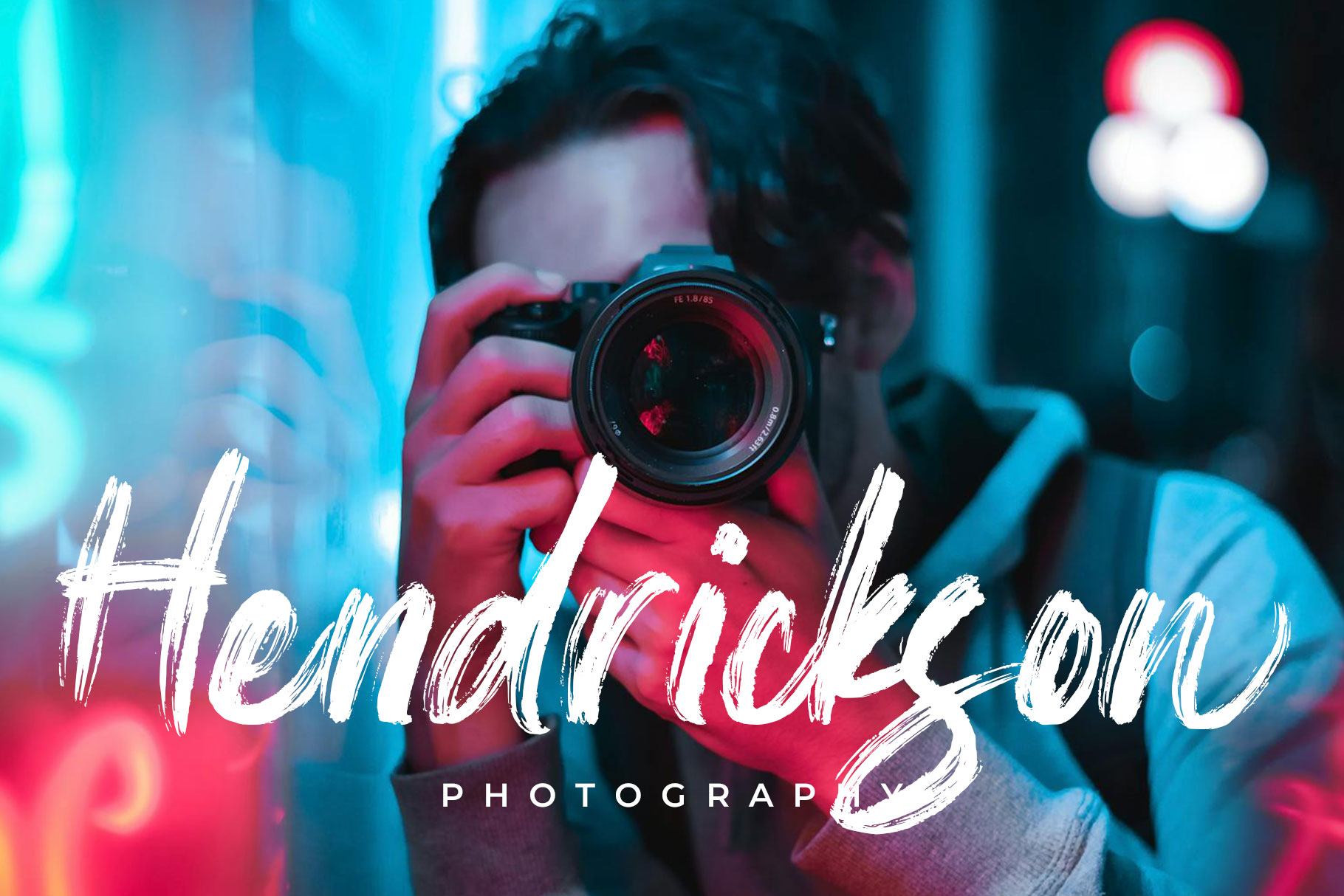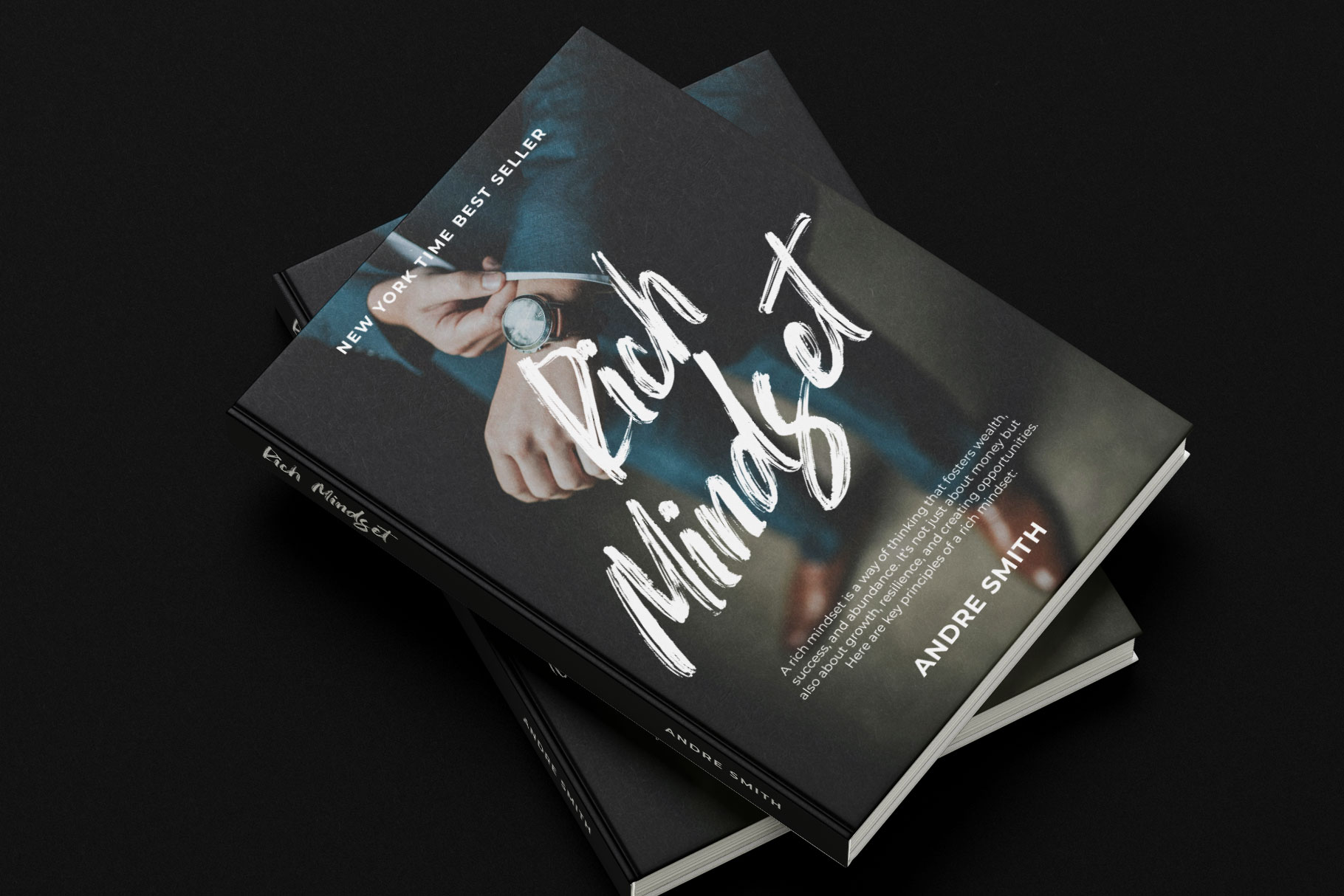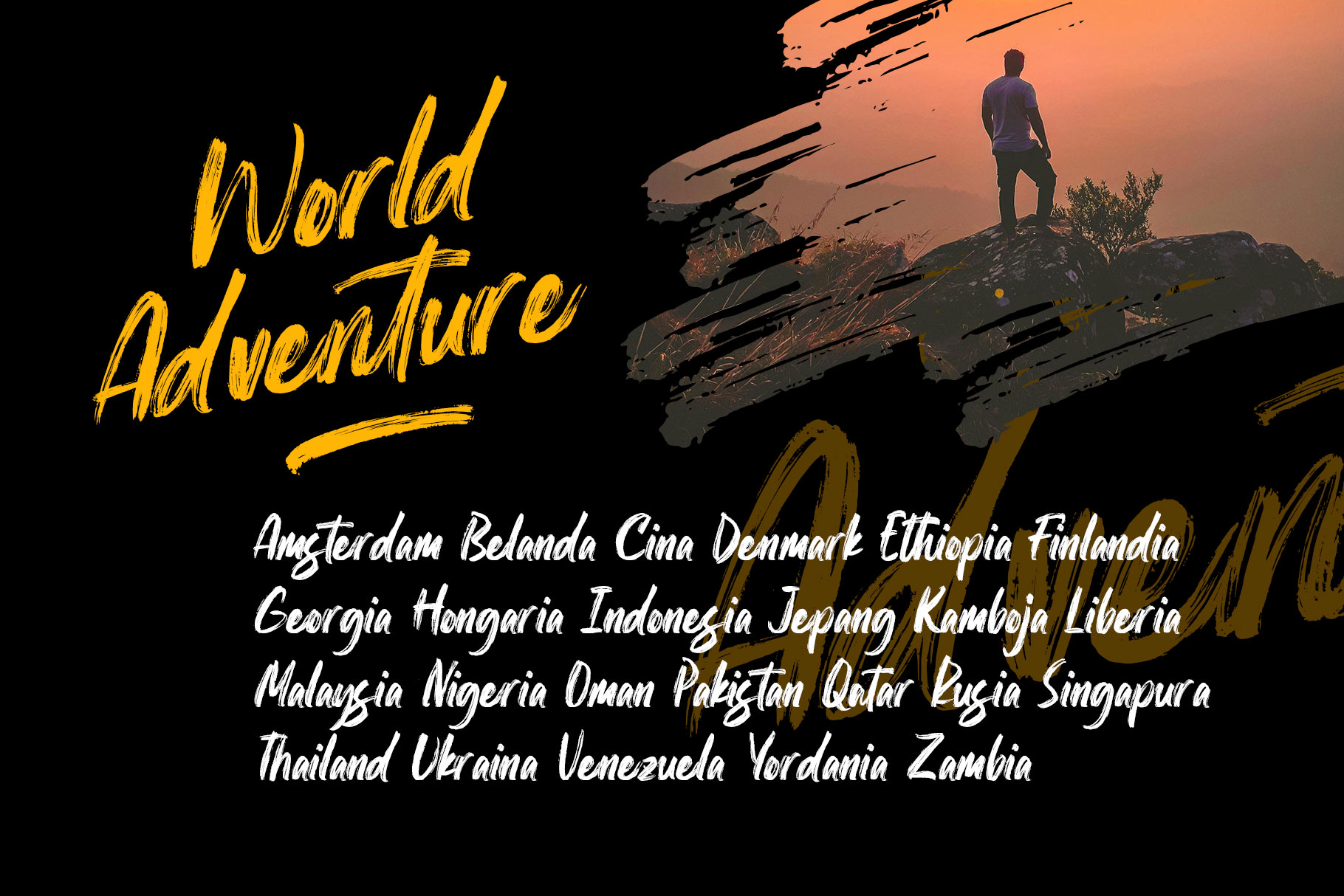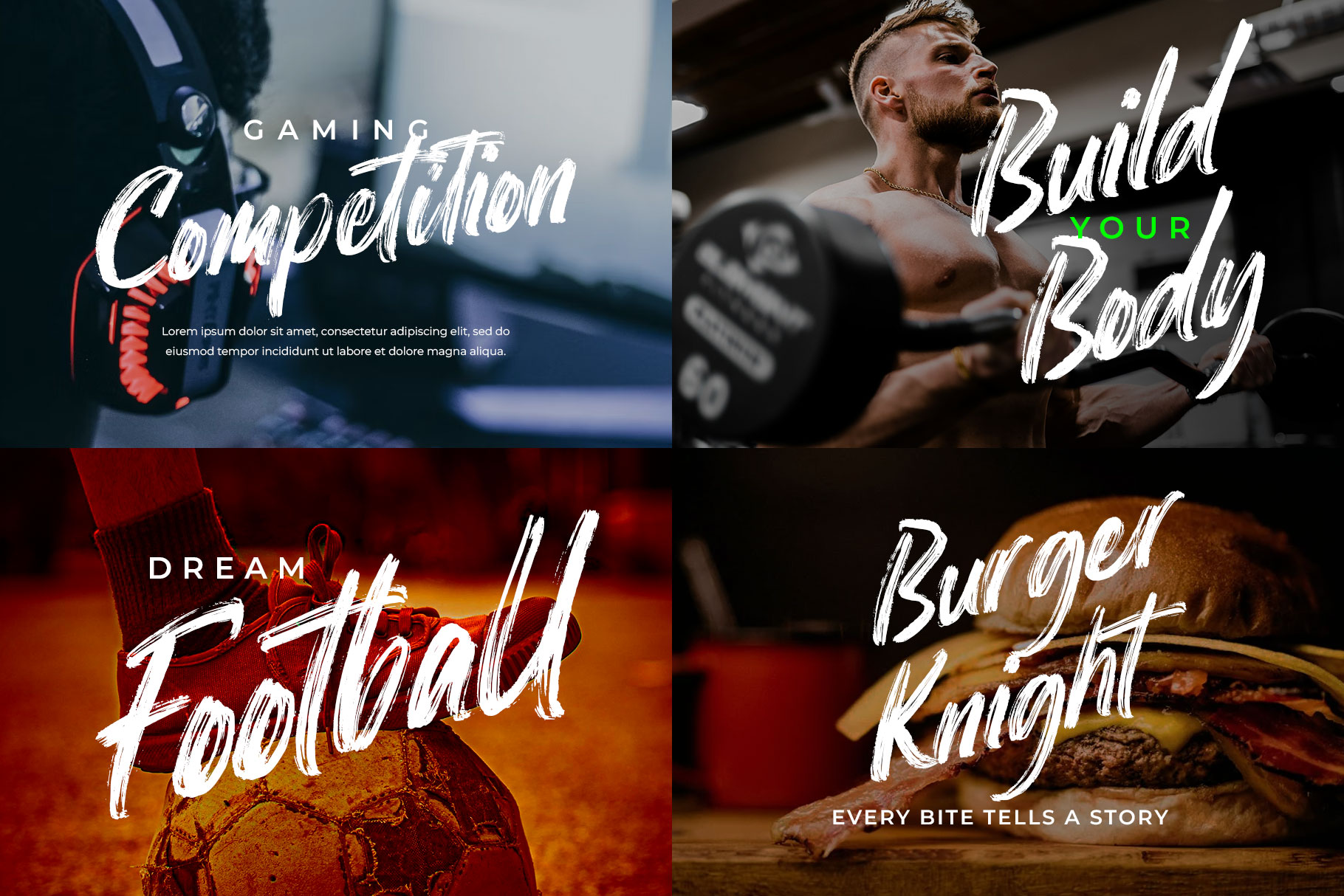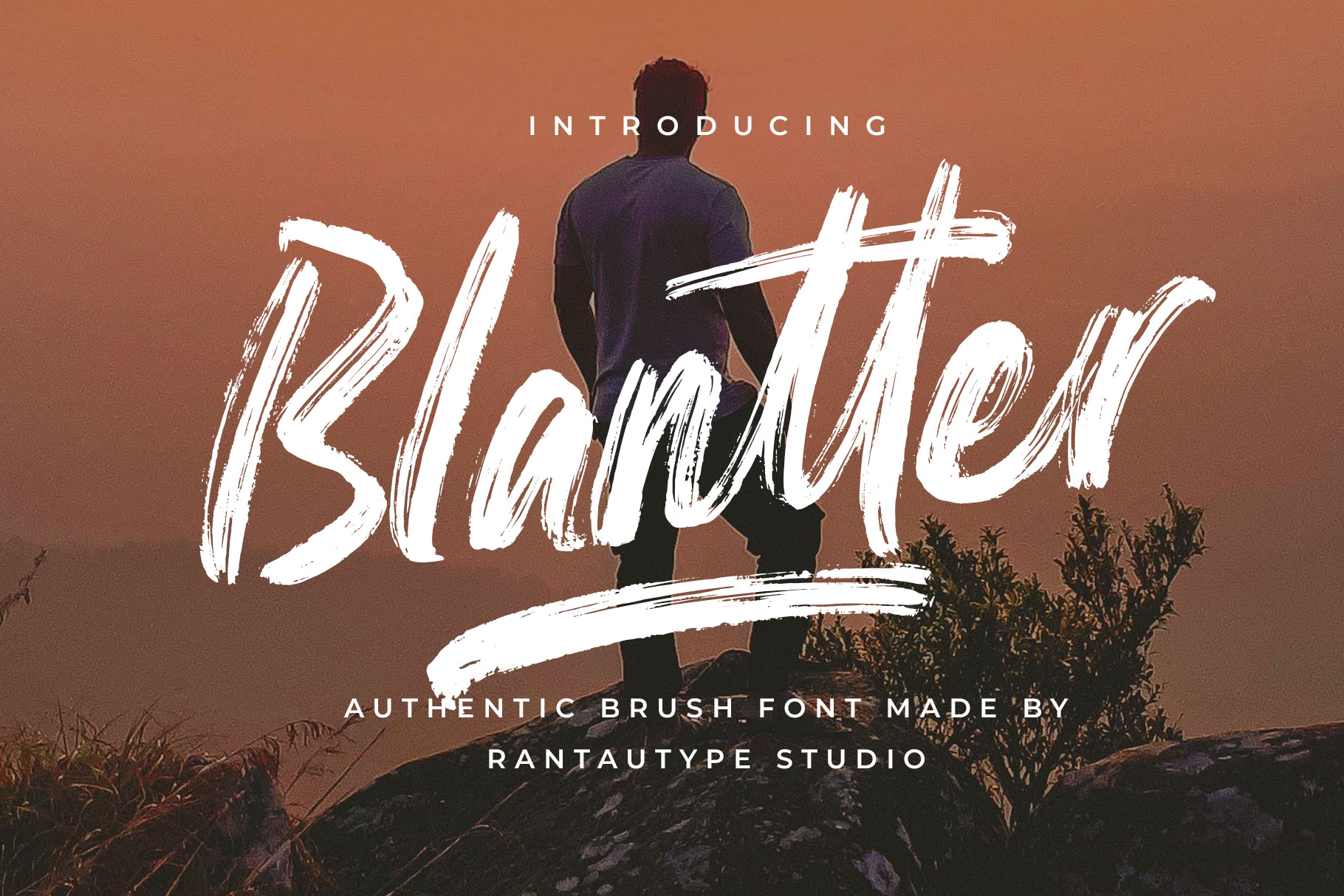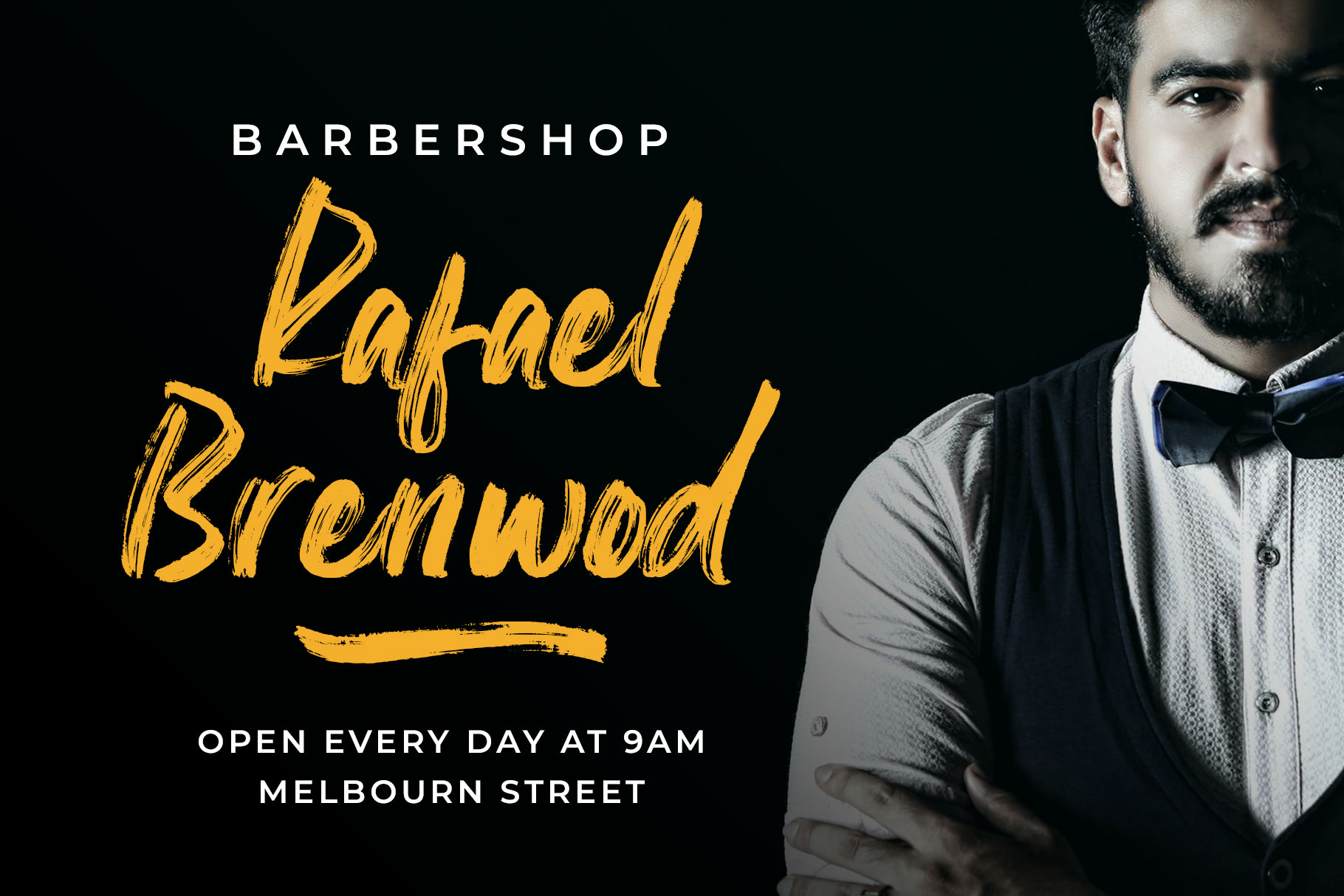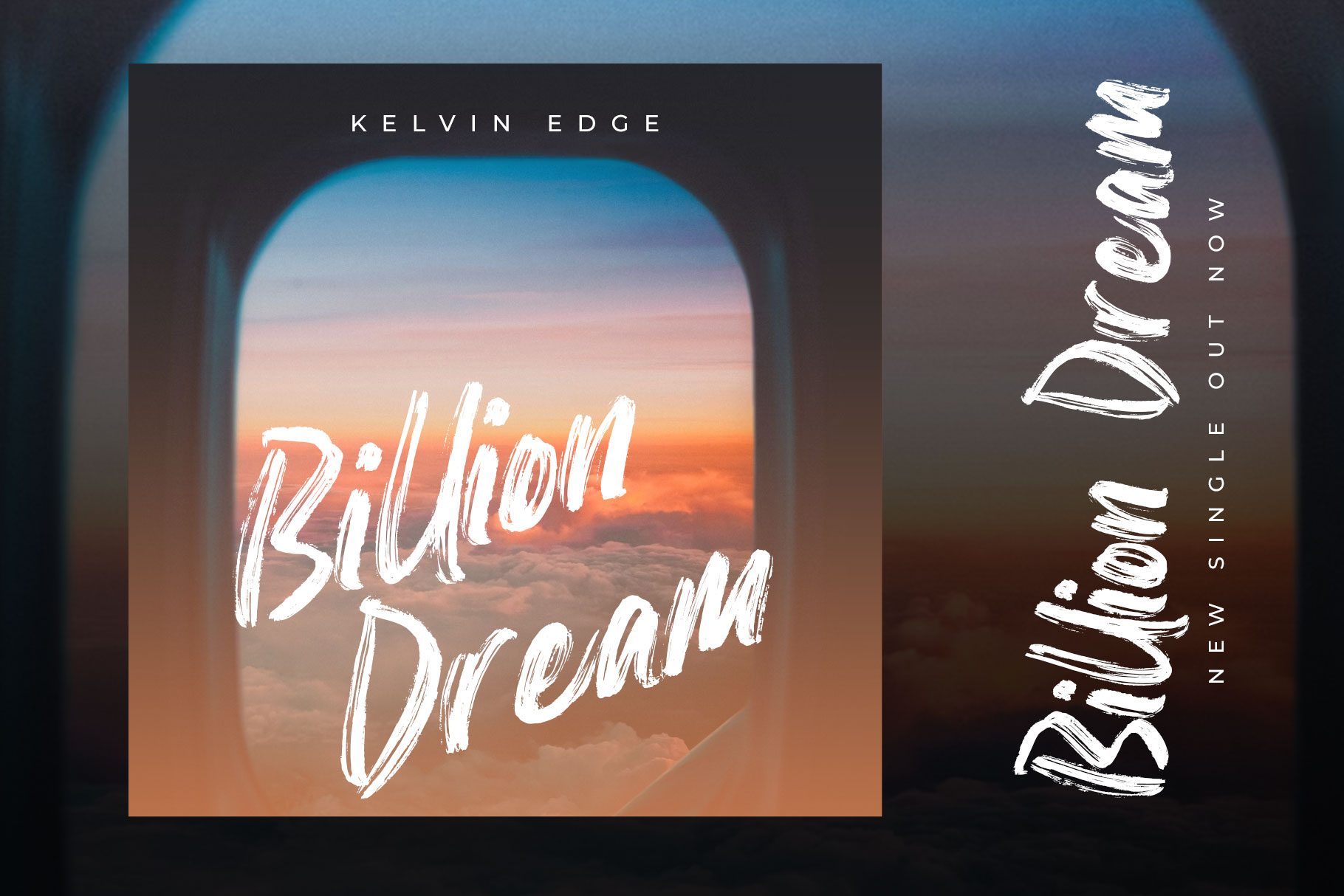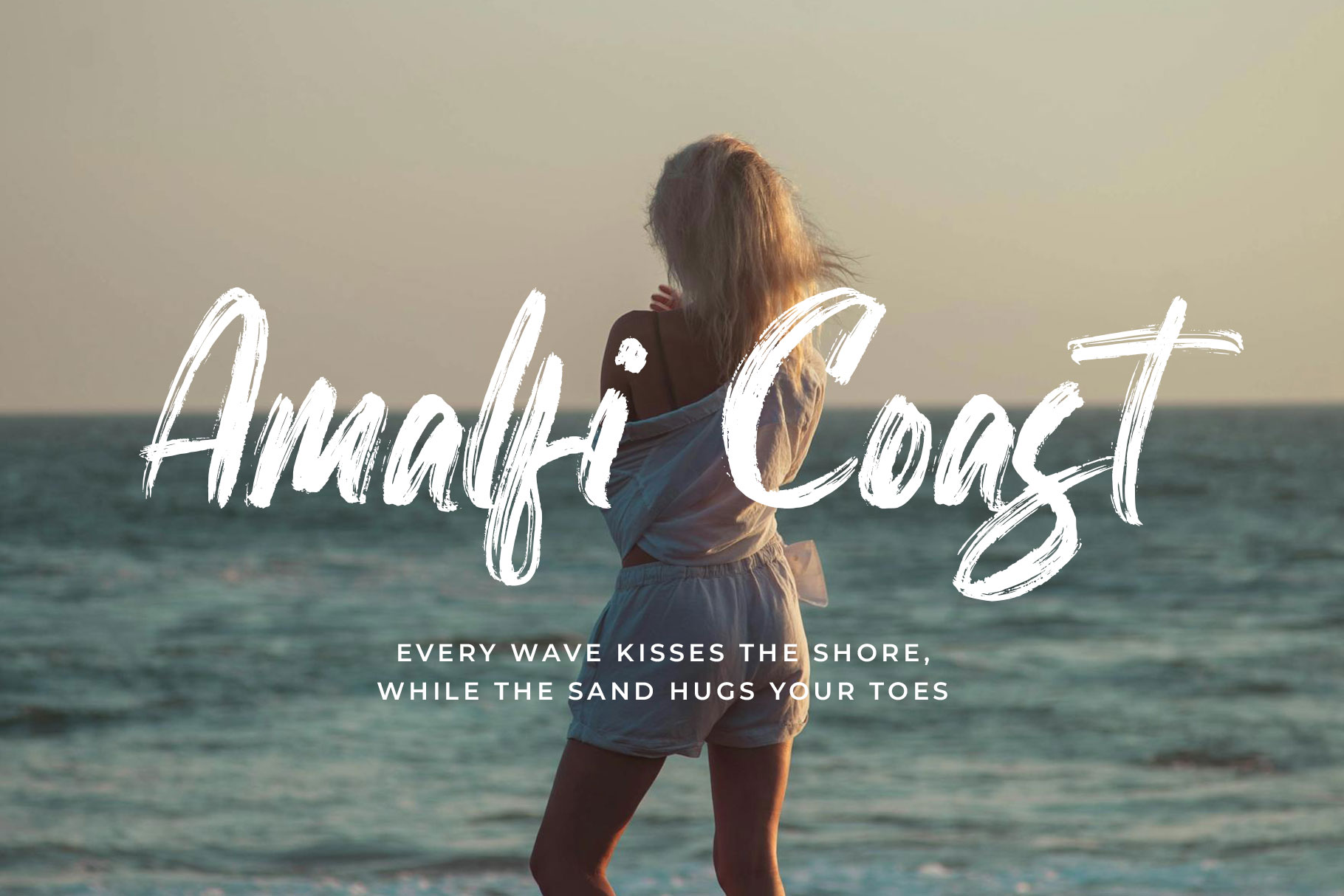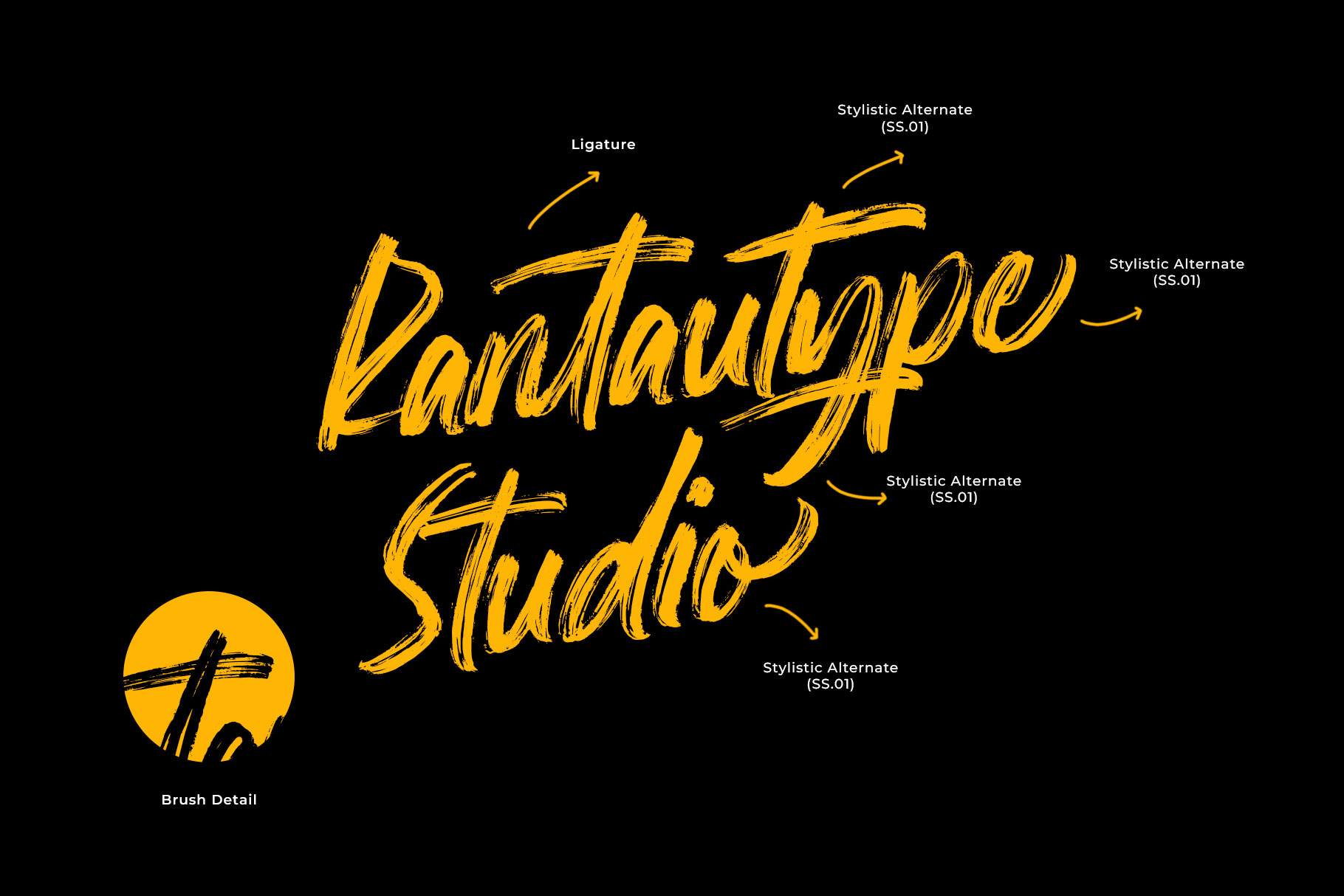
Blantter Authentic Brush Font
If you’re looking for an authentic brush font, here are blantter. Blantter is authentic brush font is a typeface designed to replicate the natural strokes of a paintbrush, often used to convey a sense of creativity, energy, and personality. These fonts are inspired by real brush calligraphy, hand-lettering, and expressive strokes, making them ideal for artistic and dynamic designs.
Blantter is a perfectly choice for any creative endeavor, creating, modern, chic, lifestyle design such as logotype, title, cover, branding, invitations, wedding designs, display and magazine, social media posts, advertisements, printed quotes, product packaging, corporate brand, product designs, labels, photography, watermarks, special events and any other project with creatiivty touch.